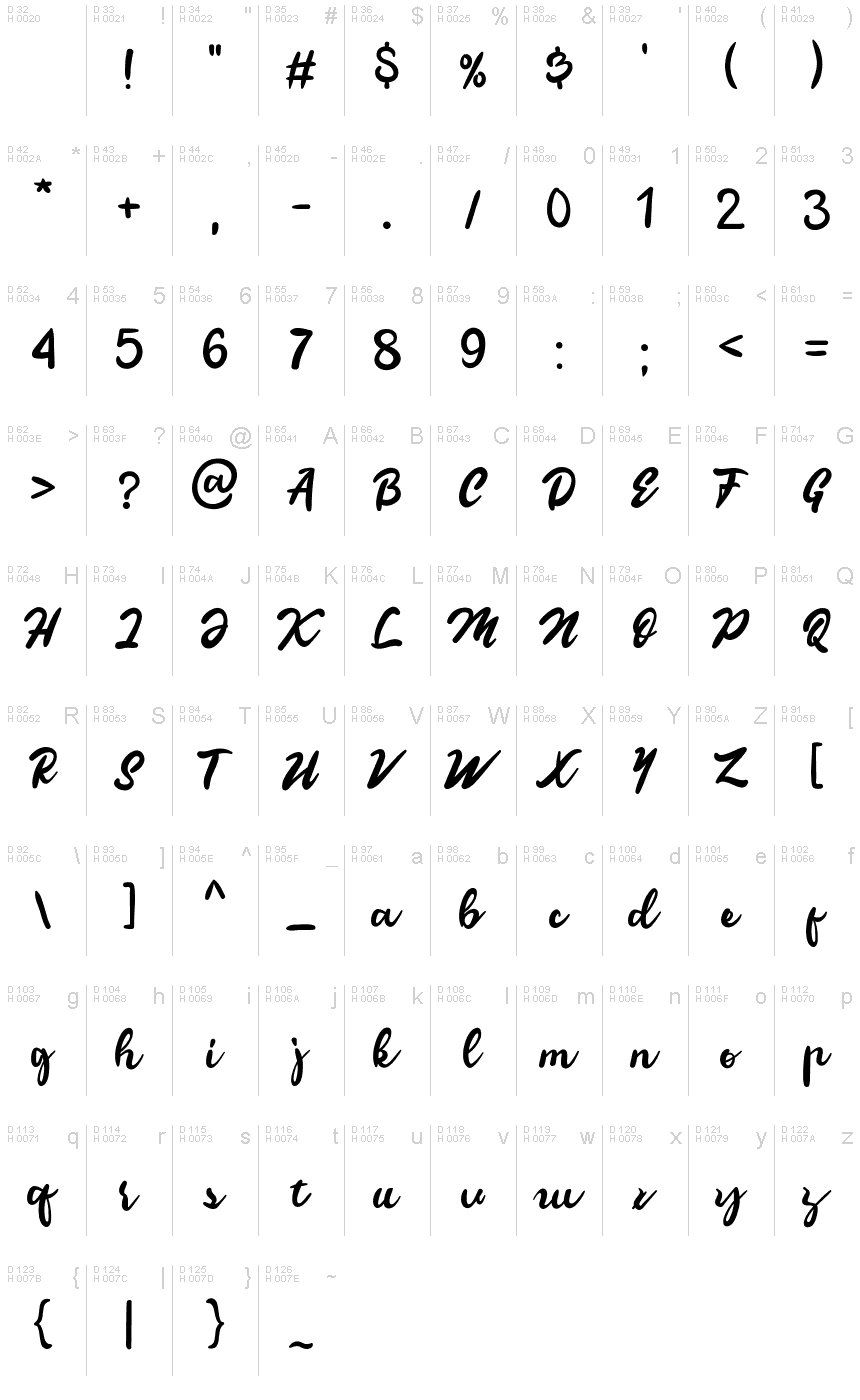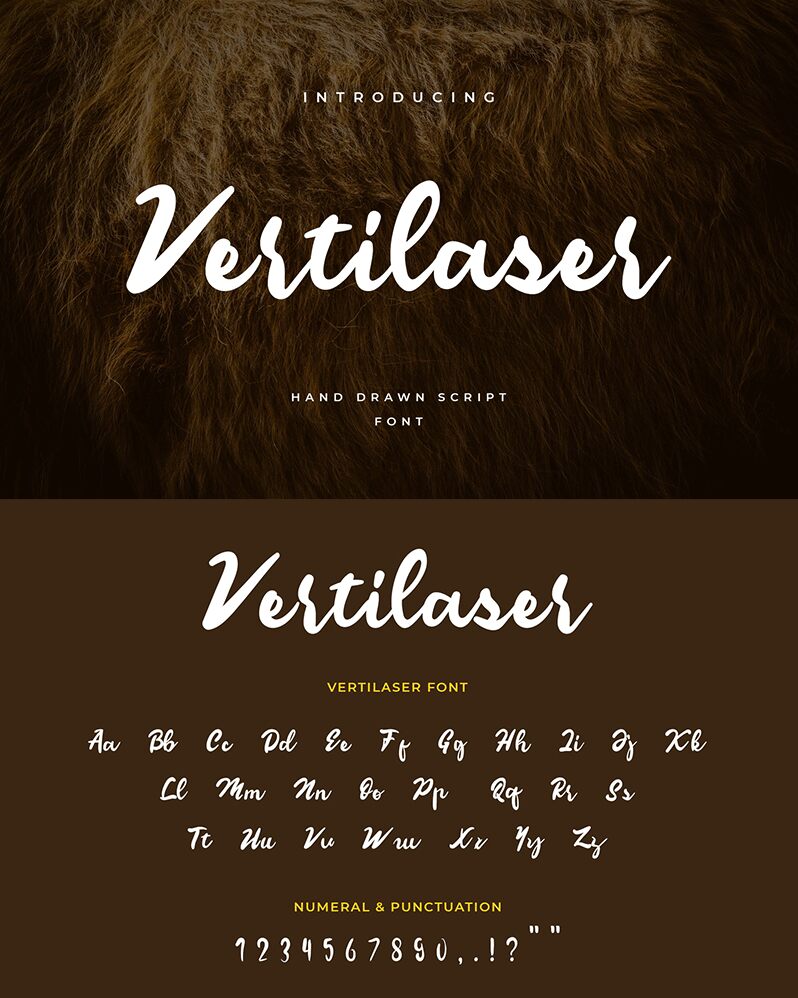
Vertilaser
Vertilaser Handrawn Script is a font that has an original handwritten design and belongs to the script font family. Giving a distinctive style of art and naturally, make this font can be used on various products and creative projects. relevant for implementation on catalog covers, stationery, marketing, magazines, films, music, logos, branding, posters, packaging, and other print designs.